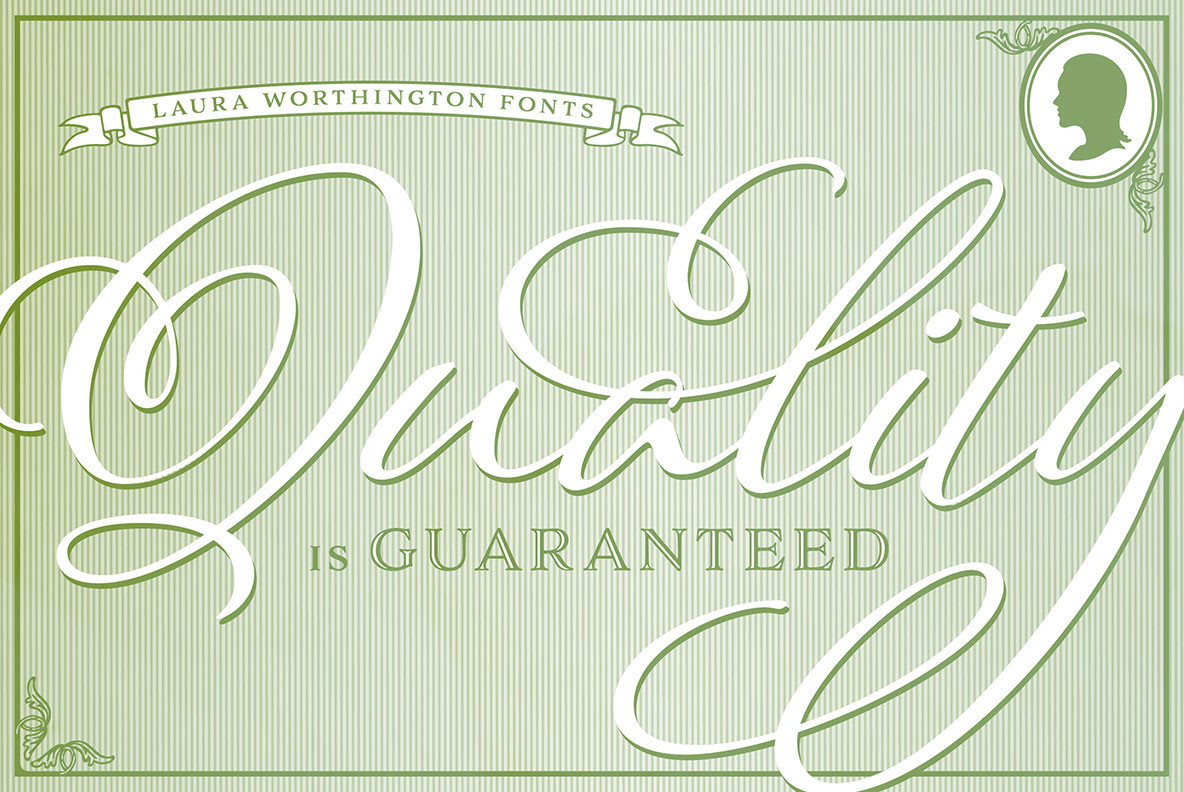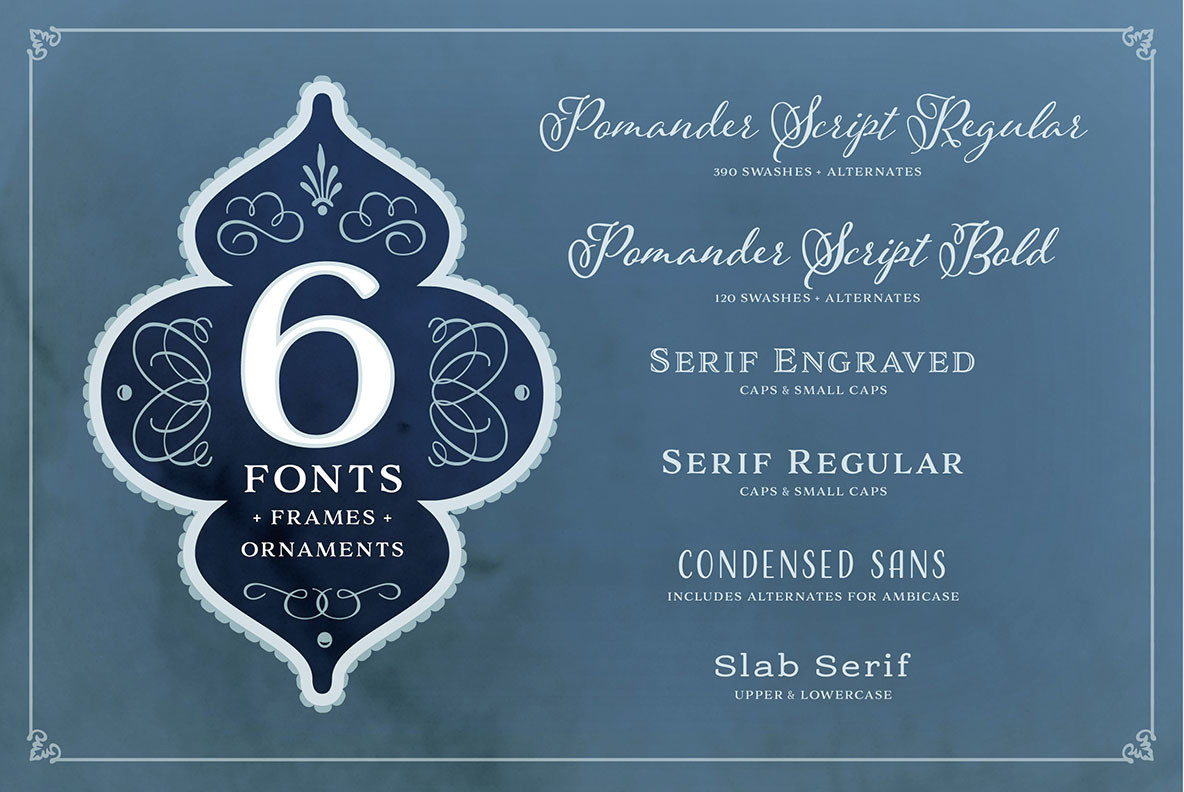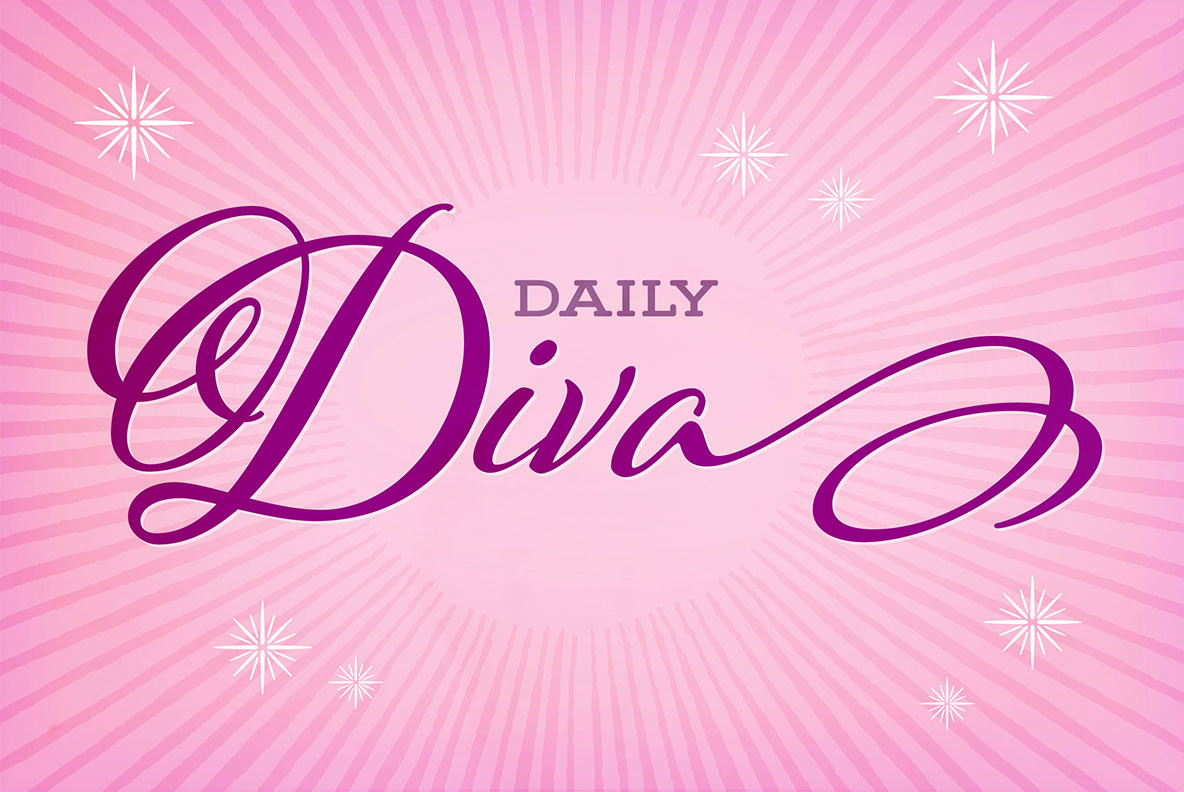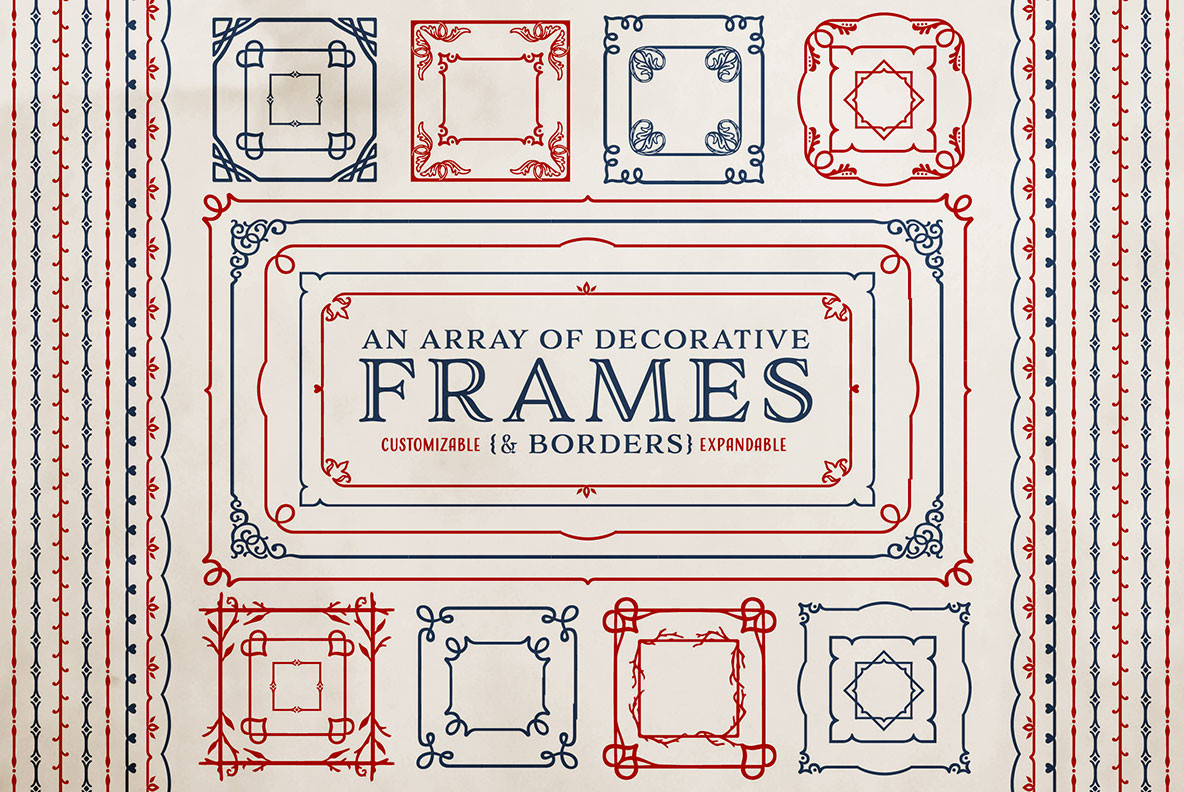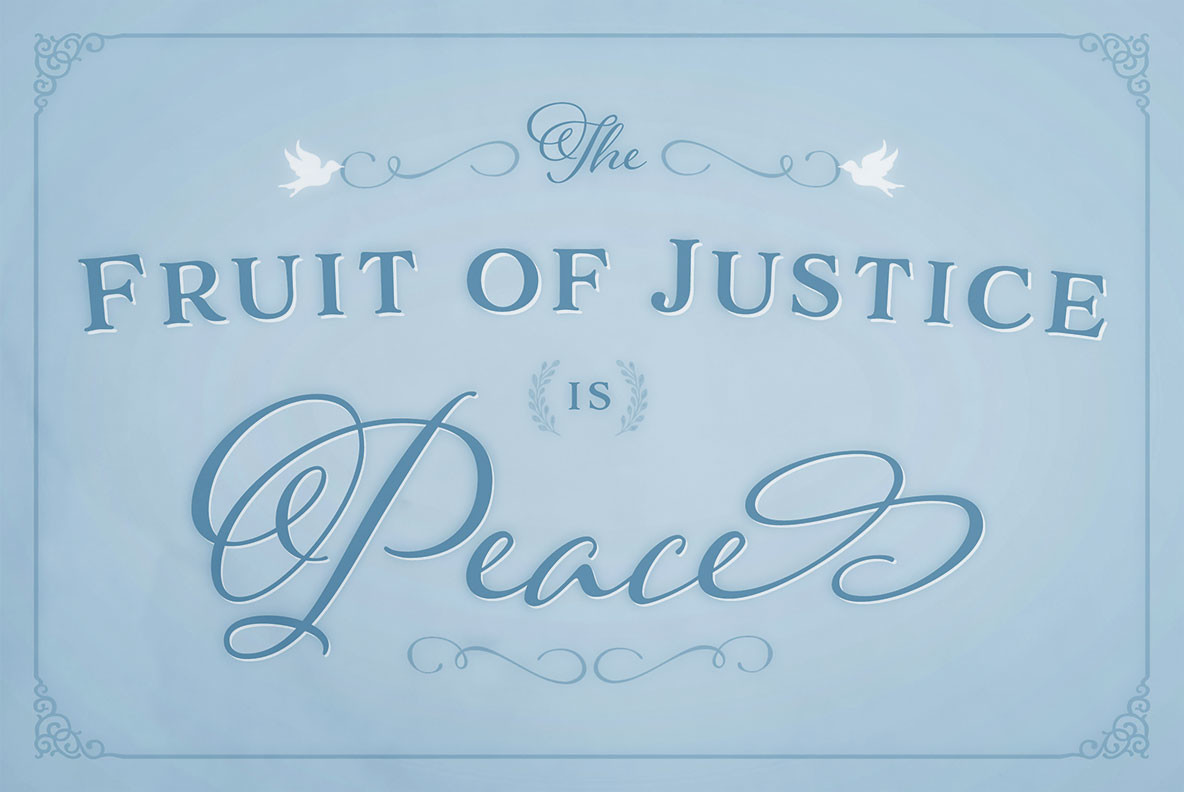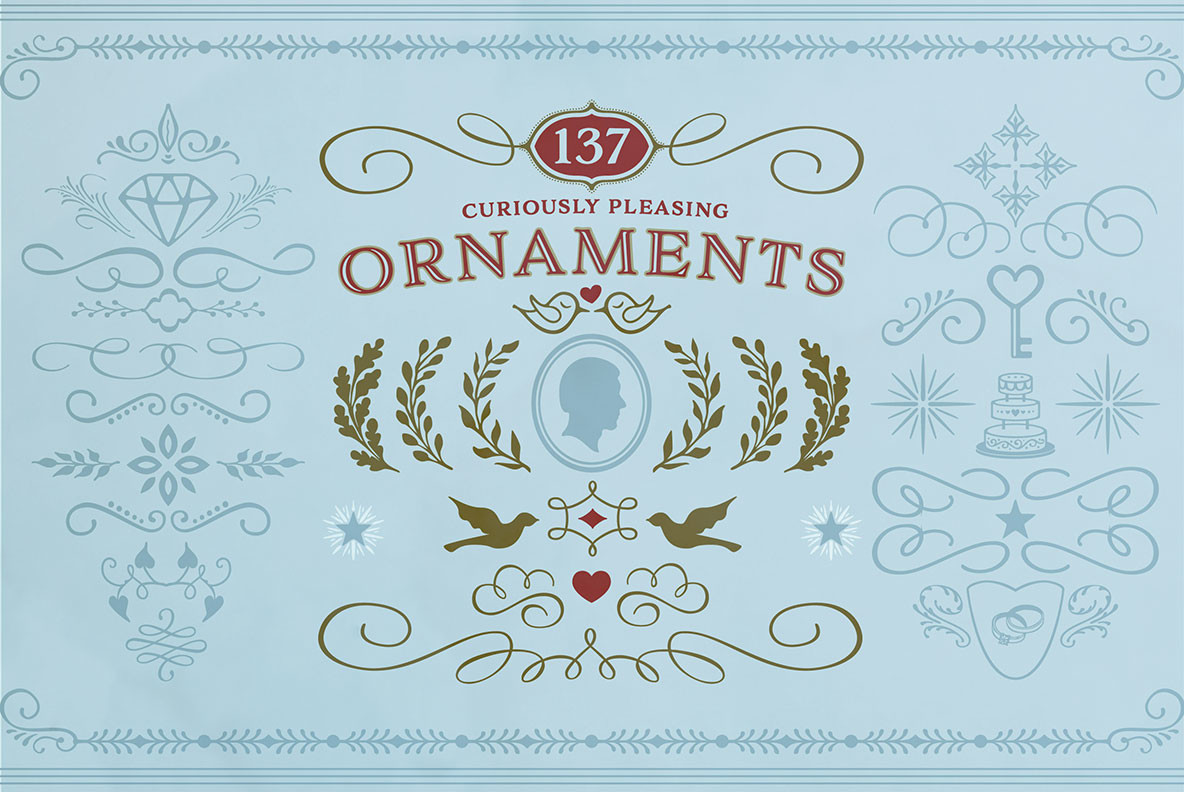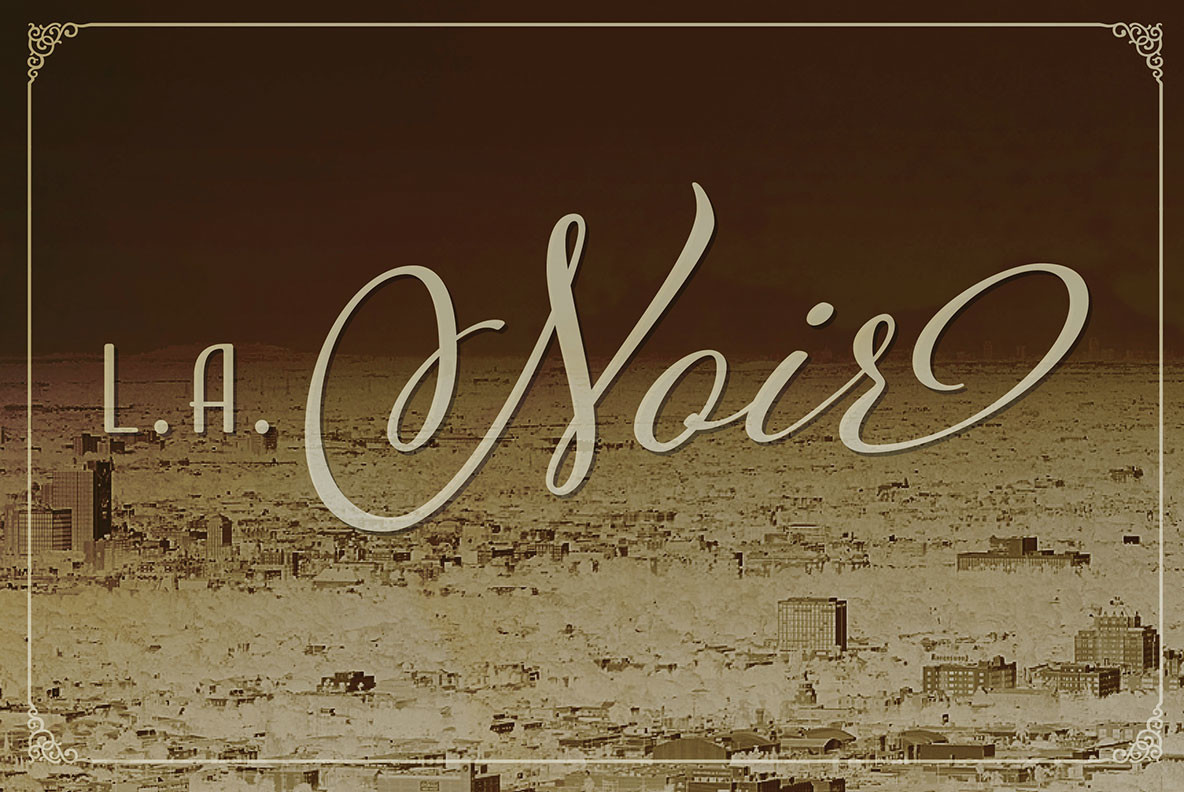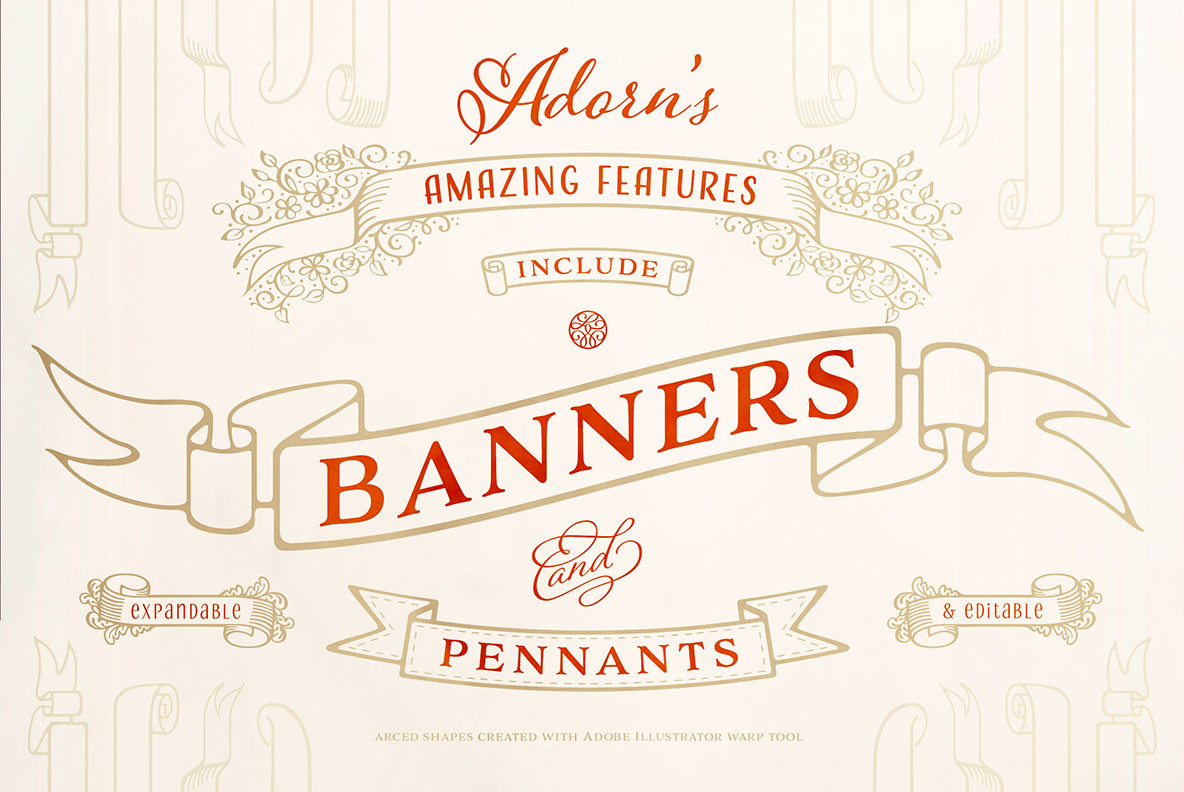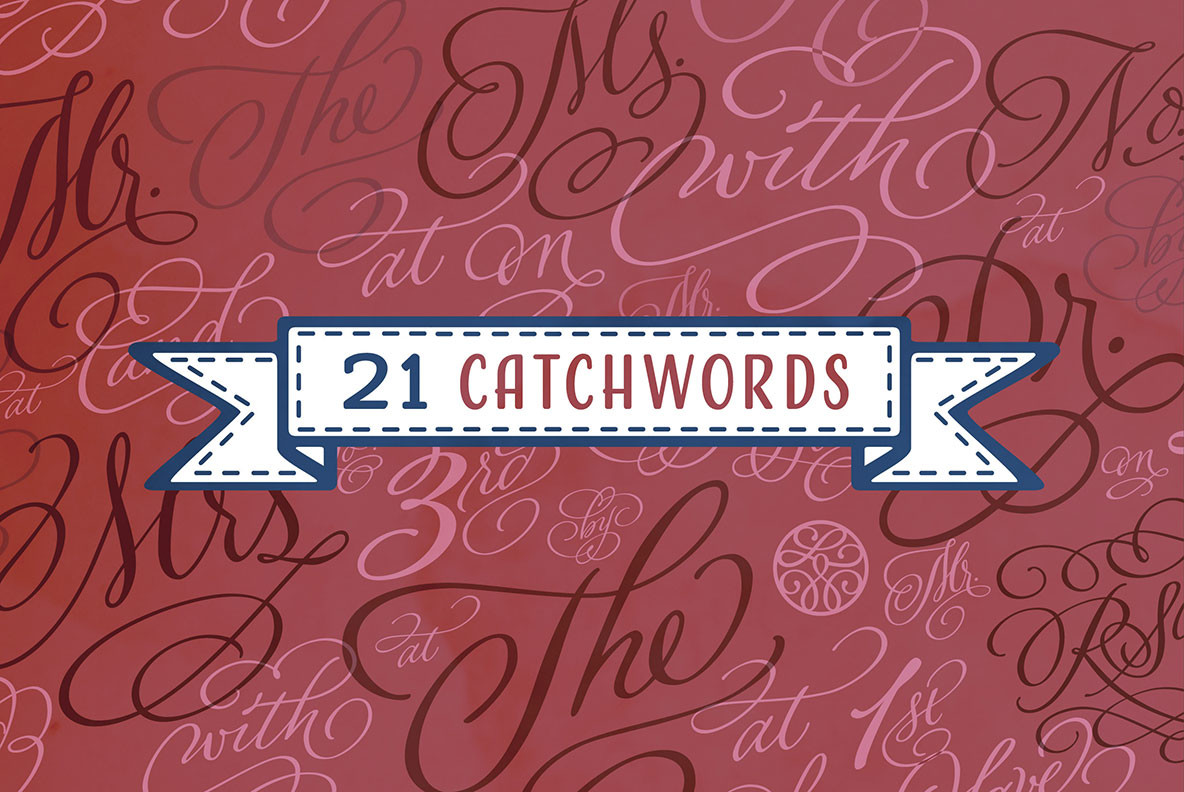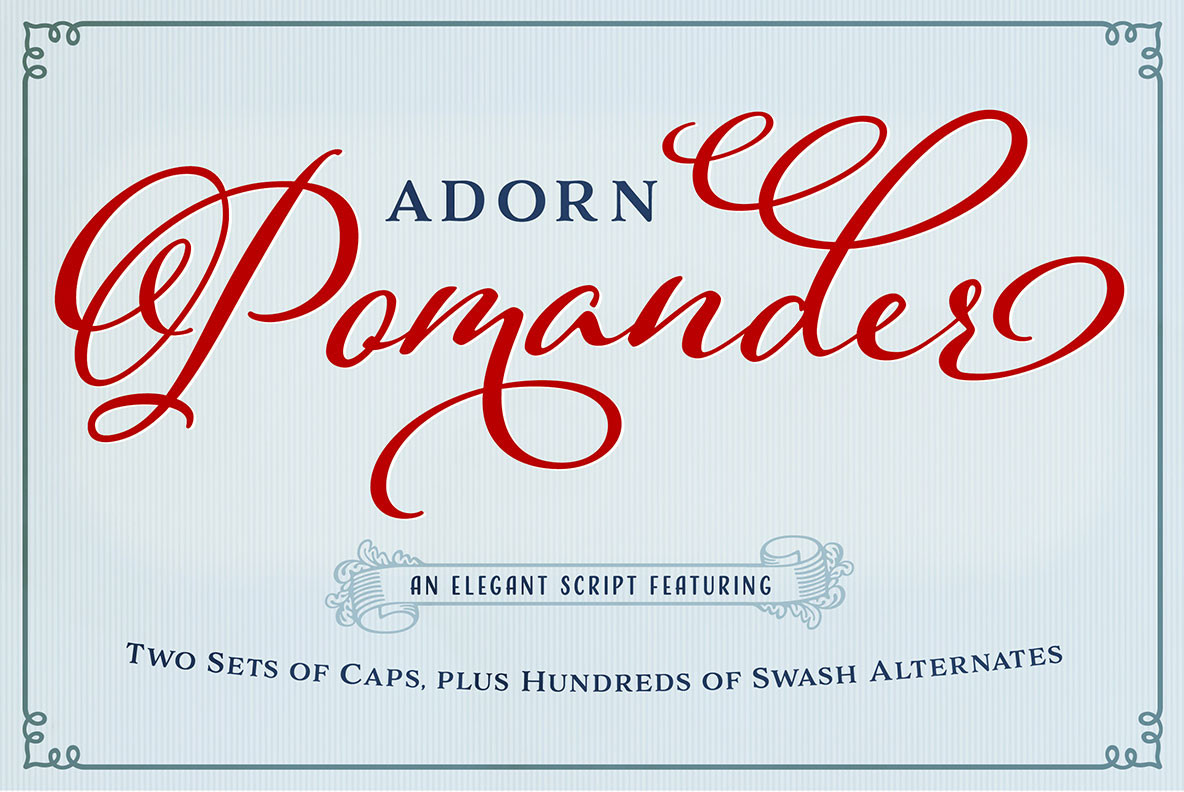
Adorn Pomander Smooth Collection Font
Like the original Adorn family on which it's based, Adorn Smooth provides a suite of distinctive typeface designs designed to complement each other rather than match exactly. Adorn Smooth revisits 6 faces from Adorn — Pomander, Serif, Slab Serif, Engraved, Condensed, and script Catchwords; plus ornaments, banners, and frames — in smooth, un-textured versions.
As with Adorn, Adorn Smooth provides a disparate but harmonious typographic toolkit for creating wedding invitations, event posters, book jackets, or packaging.
ADORN POMANDER SMOOTH REGULAR
Adorn Pomander, is a whimsical butterfly of a font: light and airy. We see the essence of those times when love is new, when our minds take flight with daydreams, and our days are bright and giddy. The uppercase letters, especially, break the rules of traditional classic calligraphy. With 390 swashes and alternate letterforms.
ADORN POMANDER SMOOTH BOLD
Adorn Pomander, is a whimsical butterfly of a font: light and airy. We see the essence of those times when love is new, when our minds take flight with daydreams, and our days are bright and giddy. The uppercase letters, especially, break the rules of traditional classic calligraphy. With 390 swashes and alternate letterforms.
ADORN SLAB SERIF REGULAR
Adorn Slab Serif is available in Regular and Bold weights. Though these display fonts can also be used for body text, their uppercase mode shines, adding texture and style to a message. Adorn Slab Serifs are unique in the Adorn collection in that they are all mono-weights. They are perhaps more masculine in style than many of the other typefaces, with a touch of “retro,”—an historic reference with a contemporary spin. The option to use both upper and lower cases also affords a practicality.
ADORN SLAB SERIF BOLD
Adorn Slab Serif is available in Regular and Bold weights. Though these display fonts can also be used for body text, their uppercase mode shines, adding texture and style to a message. Adorn Slab Serifs are unique in the Adorn collection in that they are all mono-weights. They are perhaps more masculine in style than many of the other typefaces, with a touch of “retro,”—an historic reference with a contemporary spin. The option to use both upper and lower cases also affords a practicality.
ADORN SERIF
Adorn Serif breaks free from the slick and overly polished stock. Leaning toward a handmade authenticity, the letterforms were originally drawn by hand, and Worthington accentuates their irregularities and organic look in her design choices.
ADORN ENGRAVED
Adorn Engraved is strongly reminiscent of formal invitations popular in the past. Still, the sweet tail of the Q and the irregular qualities of the lines bring it into the twenty-first century and accentuates the decorative look of the engraved font; the incisions within the stems and serifs allow the designer to use color to enliven them.
ADORN SANS CONDENSED
Of all the fonts in the Adorn Collection, Sans Condensed may be the most easily identified as bucking the template-derived wedding trend, given its modernity and informality. Created for weddings, gatherings, and pretty handmade items, it would be equally at home as a branding element of titling in movie credits. Brimming with whimsy and the eccentricities of the human touch, Condensed Sans also has contextual alternates with ambicase letters—a distinctive feature not usually found in display fonts.
ADORN CATCHWORDS
Twenty Adorn Catchwords, all custom hand-lettered using a fountain pen calligraphic technique, provide a stunning way to display frequently used words, such as prepositions, to connect factual information or simply to bridge the gap between a lavish script and a hard-working display font.